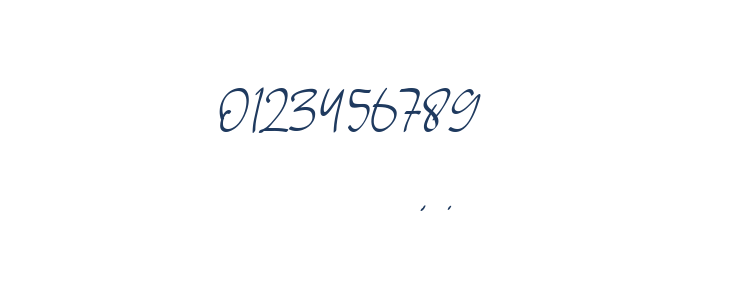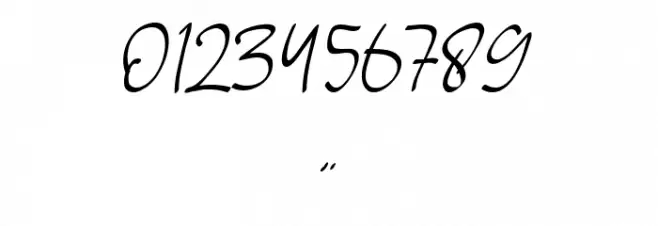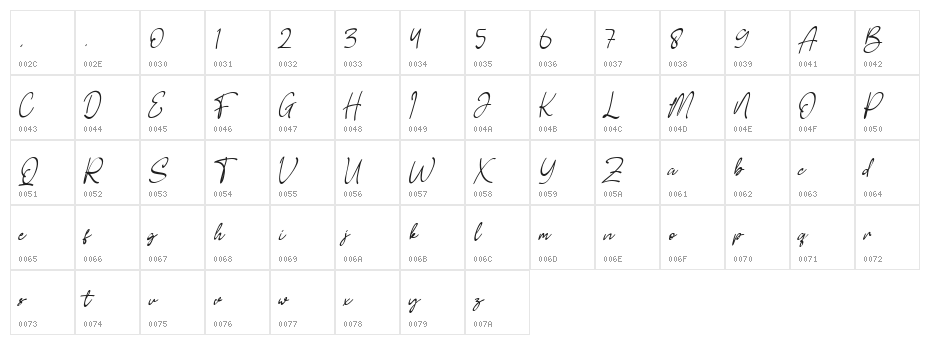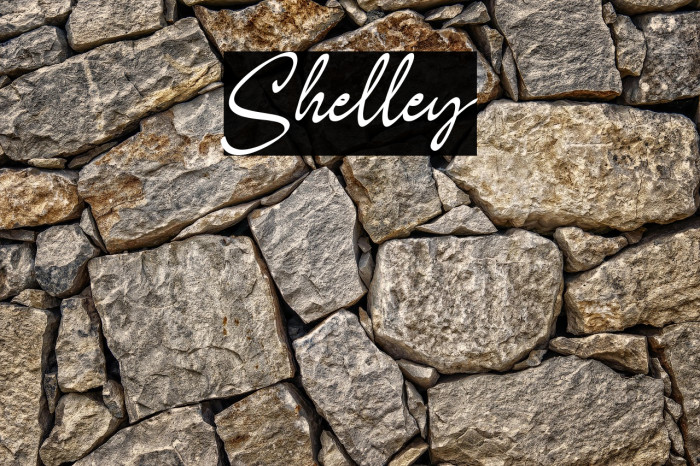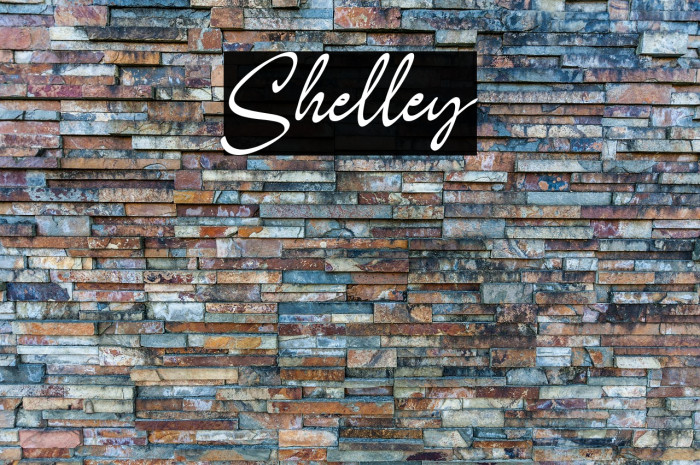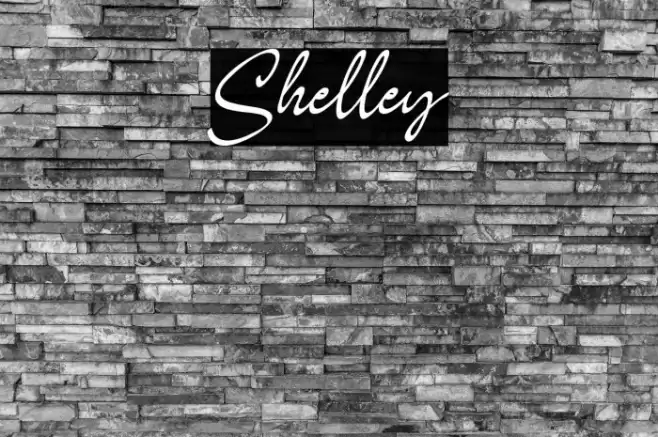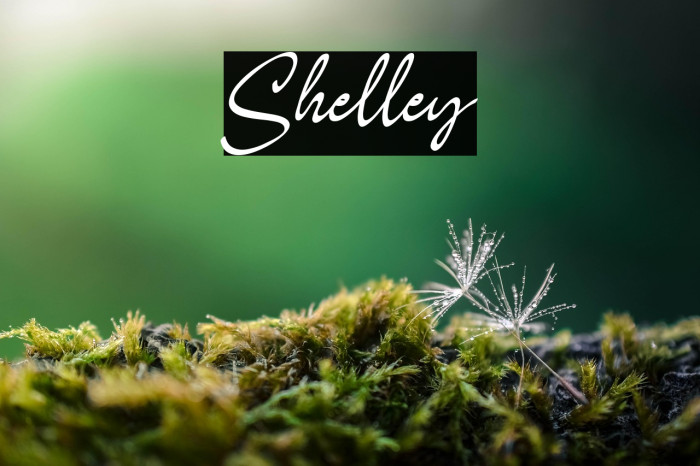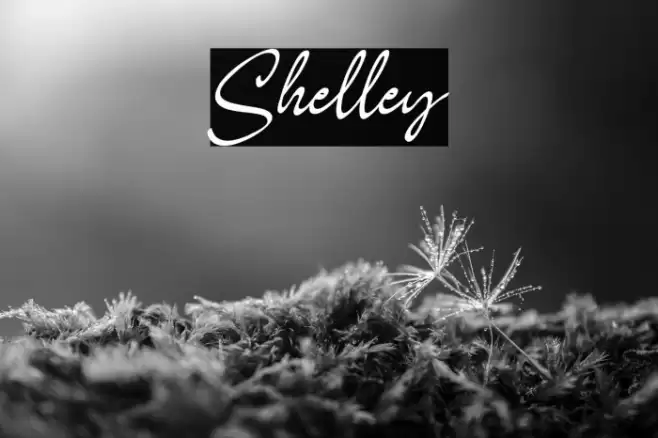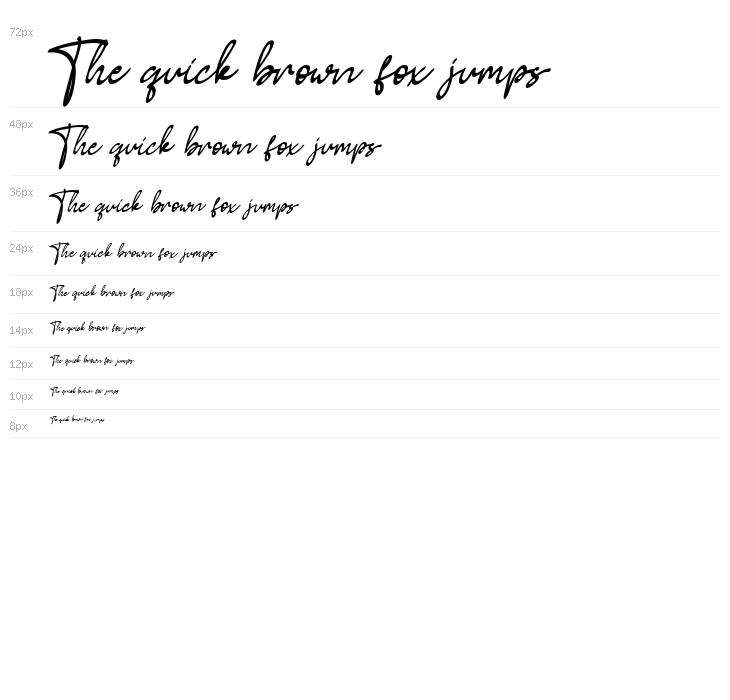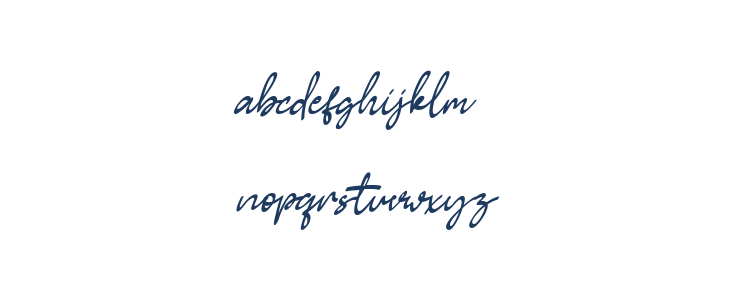
Shelley Font
Shelley Description
This elegant script font features a flowing, cursive style with graceful, sweeping curves and delicate strokes. The uppercase letters are tall and slender, with a slight slant that adds a sense of movement and sophistication. The lowercase letters are more compact, maintaining the fluidity and connectedness typical of cursive handwriting. The numerals are consistent with the overall style, offering a harmonious blend of formality and flair. This font exudes a classic and timeless charm, making it suitable for a variety of formal and decorative applications.
Overall StyleClassic
Use CaseLogos, Invitations, Decorative text
Proposed ProjectsIdeal for wedding invitations, elegant branding, formal event programs, and decorative signage.